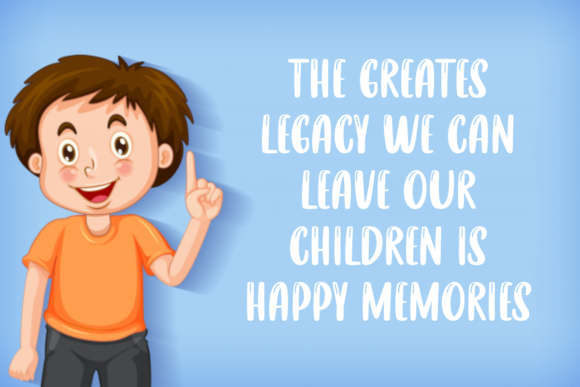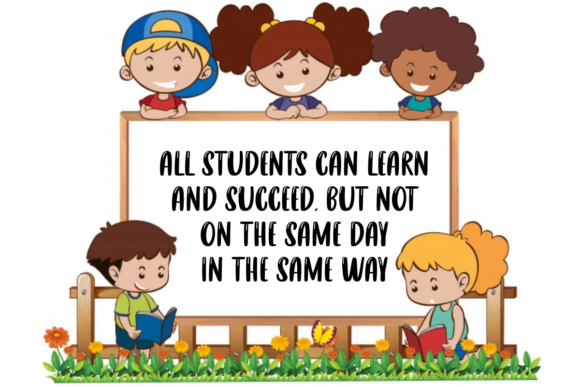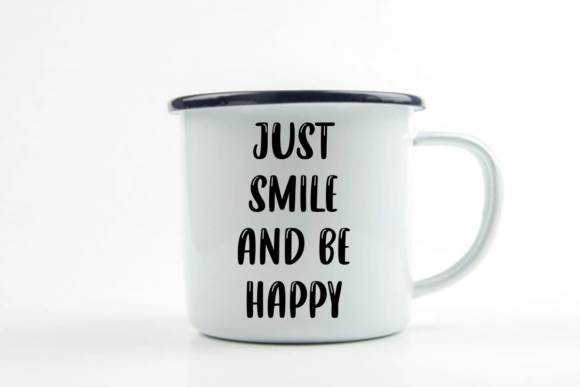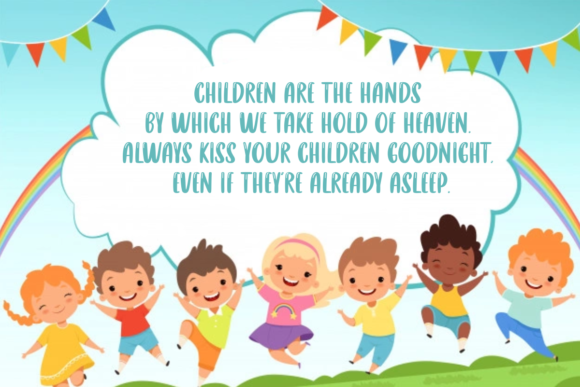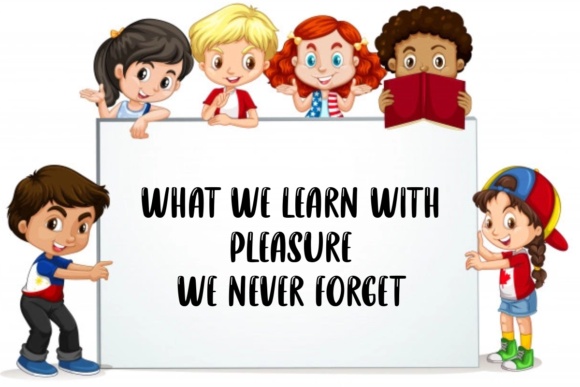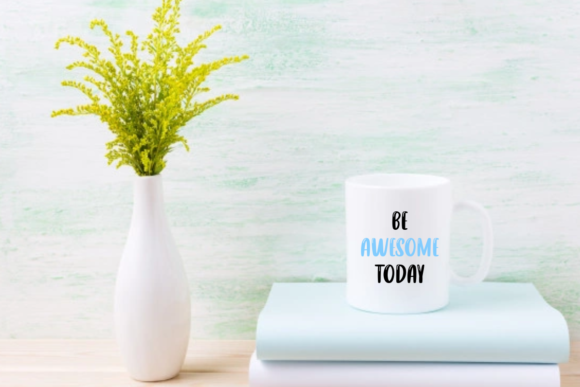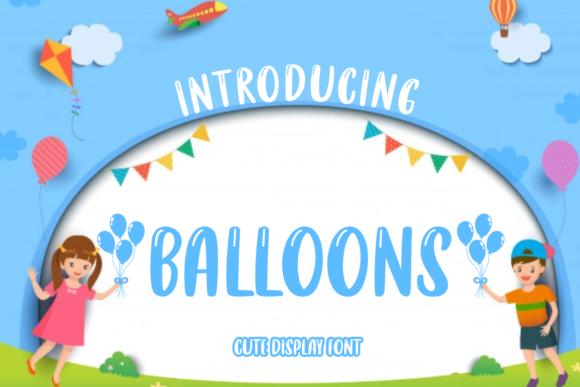
Balloons Font: Adding a Touch of Whimsy to Your Designs
Who among us hasn’t been inspired by a child’s laughter or the simple joy of a birthday party? For designers, capturing that sense of wonder and magic can be a challenge, but it’s also a chance to get creative. Imagine a font that embodies the carefree spirit of a child, with playful curves and lines that seem to dance across the page.
That’s exactly what the Balloons Font is all about. This adorable display font is perfect for children-themed designs, especially when paired with bright colors that seem to pop off the page. Whether you’re designing a birthday invitation, a children’s book, or a playful advertisement, the Balloons Font is sure to add a touch of whimsy and fun to your project.
Balloons Font Key Features
• Font Family: Balloons Font is a sans-serif font family.
• Size: The font family includes 6 weights: Light, Book, Regular, Medium, Bold, and Black.
• Unique Characteristics: The font is known for its playful, rounded shapes and friendly feel, making it ideal for children’s books, magazines, and advertising materials.
Balloons Font Review
Overall, I think the Balloons Font is a cute and playful option for designers looking to add some whimsy to their projects. ✨ It’s great for creating a lighthearted and child-friendly atmosphere, which makes it perfect for children’s books, party invitations, and other related projects.
• ✨ The font’s unique, rounded shapes make it stand out from more traditional serif or sans-serif fonts.
• ✨ It’s highly customizable, allowing designers to adjust the size, color, and spacing to fit their project’s needs.
• ✨ The font is highly legible, even at smaller sizes, which makes it a great choice for text-heavy projects.
• ⚠️ The font can be a bit too playful and childish for more serious or professional projects.
• ⚠️ The rounded shapes can make the font difficult to read at very small sizes or in low-contrast environments.
Overall, I think the Balloons Font is a great option for designers who want to add some fun and whimsy to their projects. While it may not be suitable for every project, it’s definitely worth considering for those that require a lighthearted and playful atmosphere.
Balloons Font: A Practical Application Guide
To get the most out of the Balloons Font, try combining it with other playful elements, such as illustrations or graphics. Use it in moderation to avoid overwhelming your design. Experiment with different font sizes and colors to create visual interest.
The Balloons Font is perfect for:
– Children’s party invitations and decorations
– Whimsical greeting cards and gift tags
– Playful social media graphics and ads
– Educational materials and children’s books
Alternatives to Balloons Font
Balloons Font is a popular font known for its playful and whimsical feel. However, there are several alternatives that designers can use depending on their specific needs. Here are a few options:
Great Vibes is a modern and elegant script font that can be used for a variety of purposes, including invitations, branding, and packaging. It has a more sophisticated feel than Balloons Font and is suitable for both digital and print designs. Great Vibes is ideal for designers who want to create a high-end look without sacrificing the playfulness of a script font.
Comparison to Balloons Font: Great Vibes is more refined and less childlike than Balloons Font, making it a better choice for formal or professional designs.